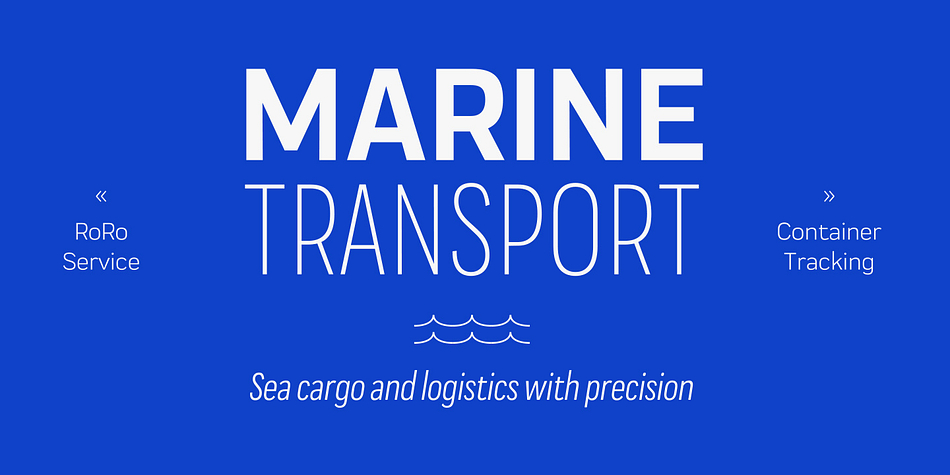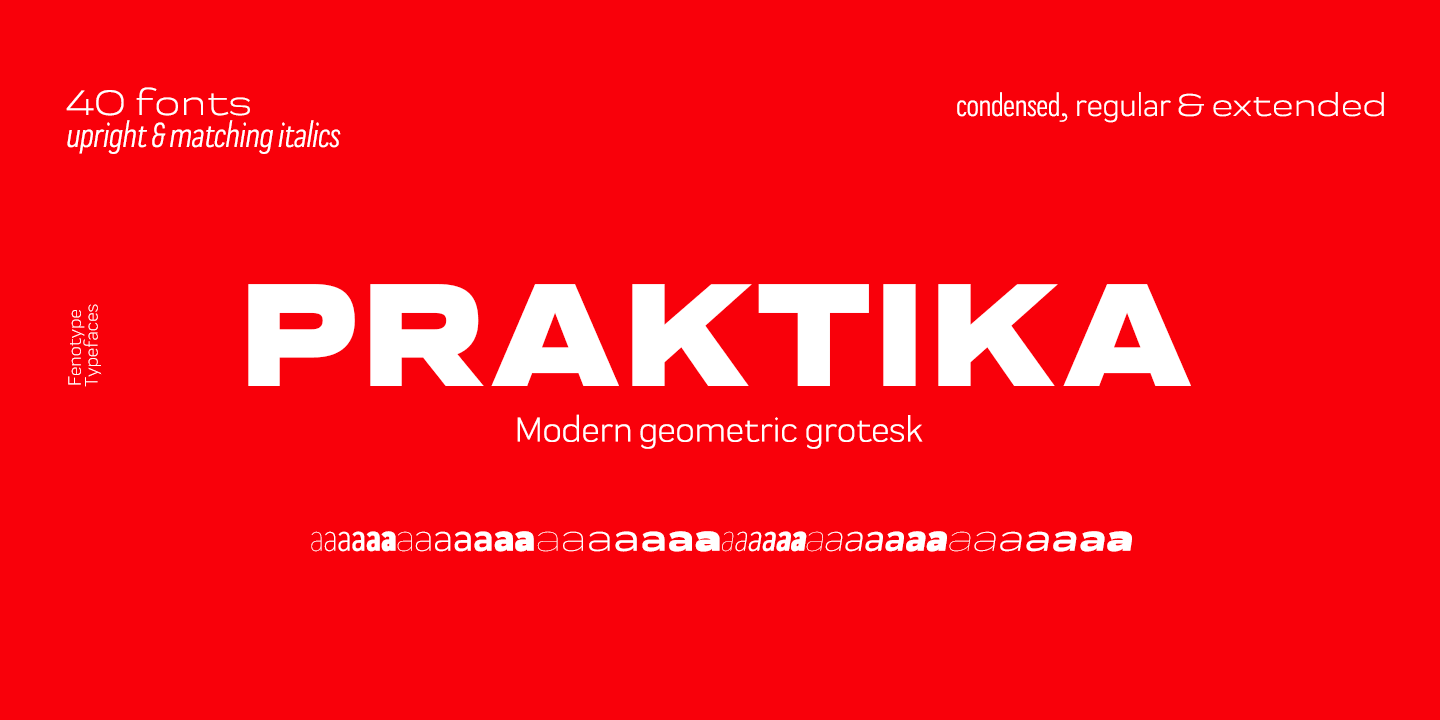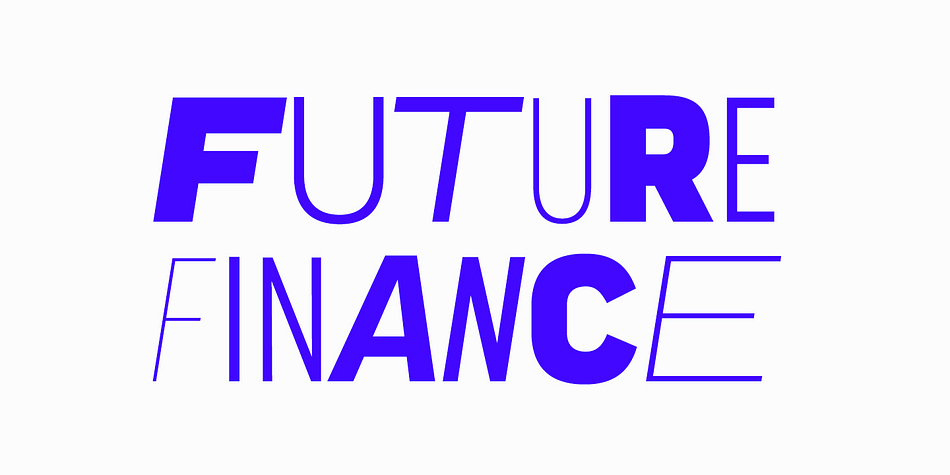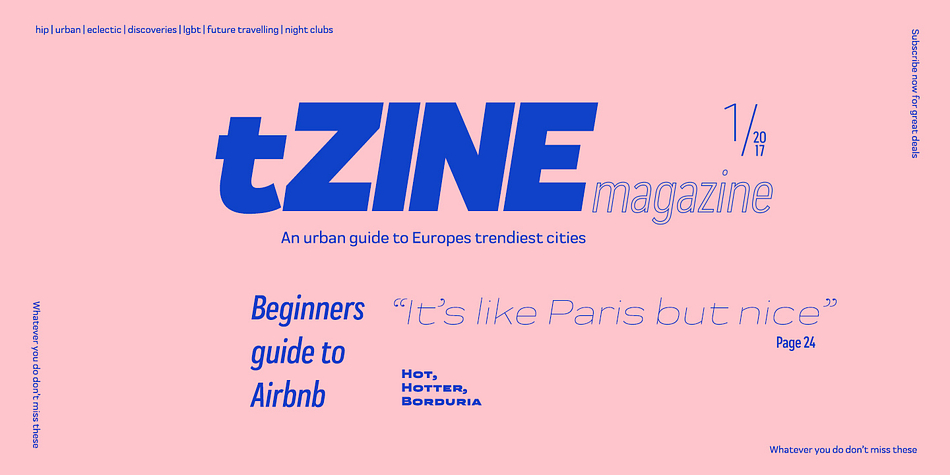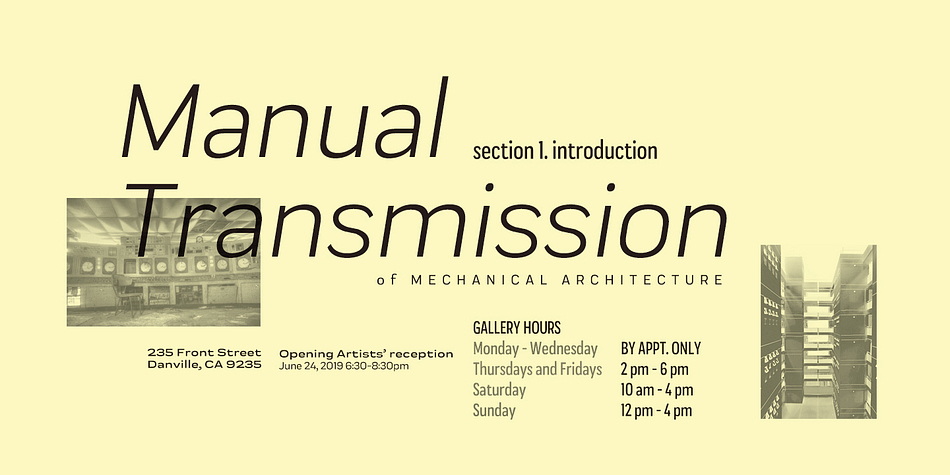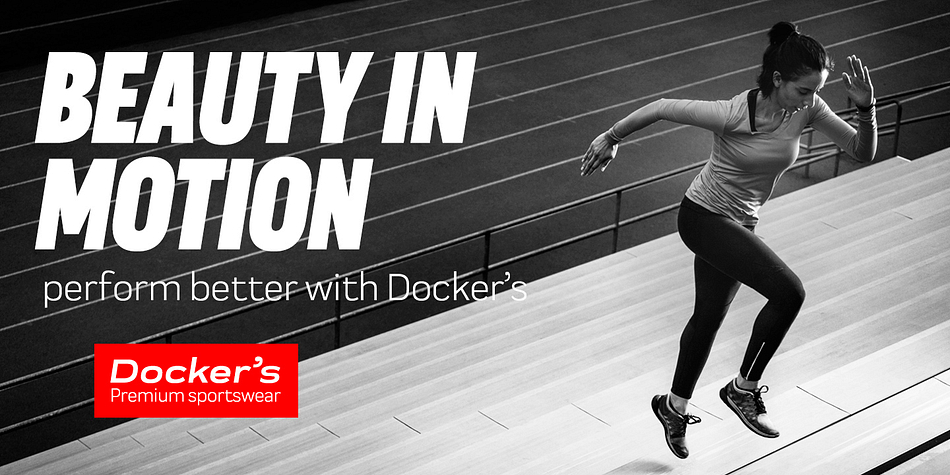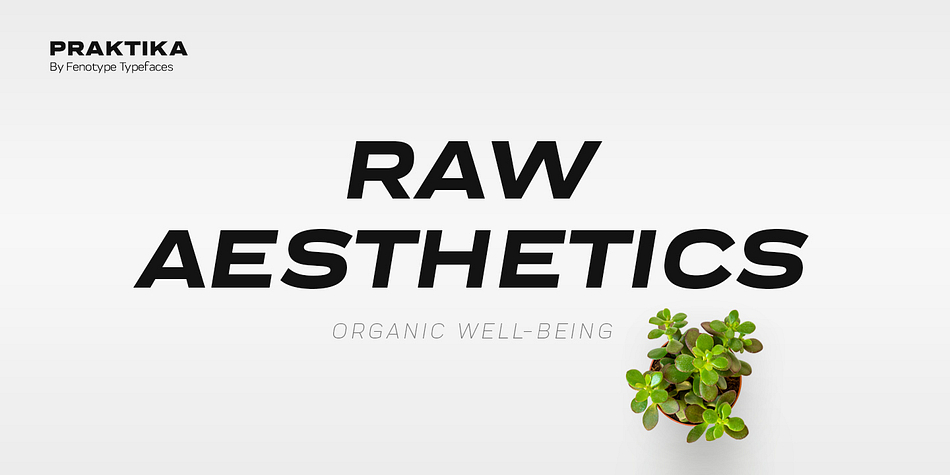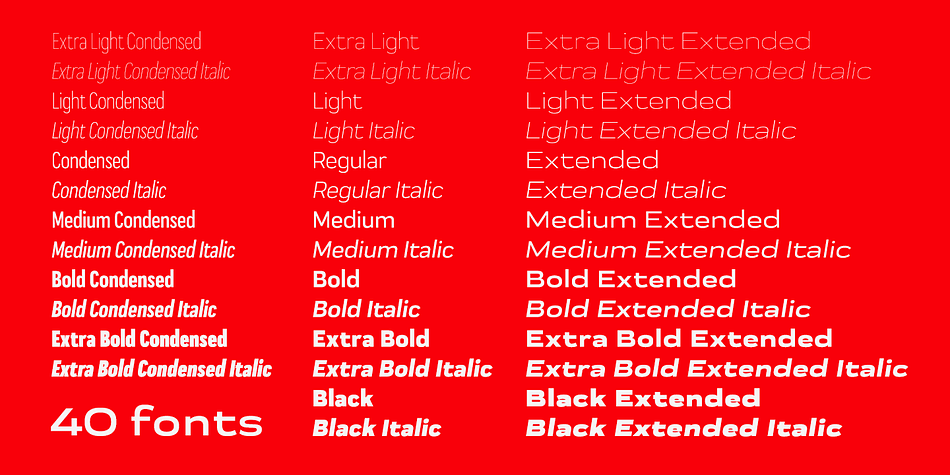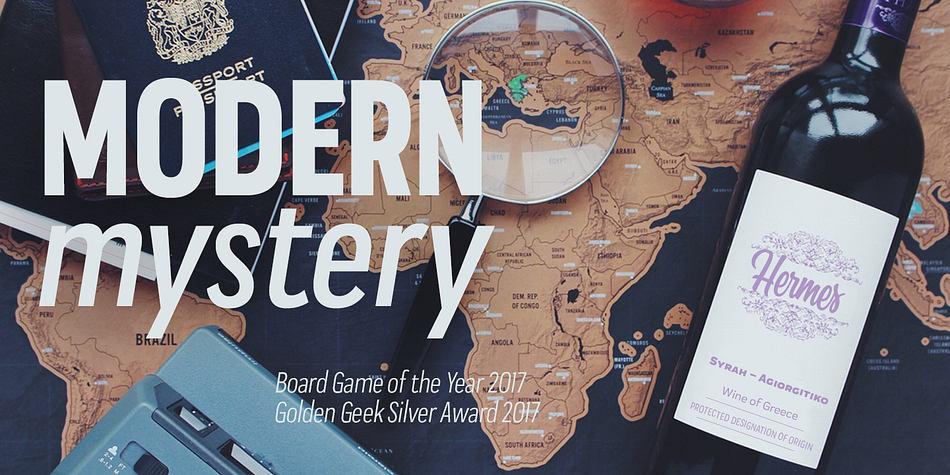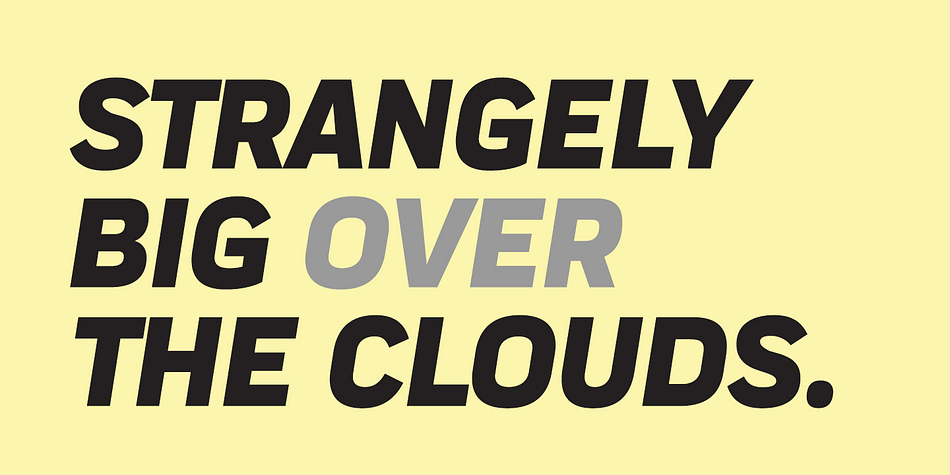
Designed by Emil Bertell, Praktika is a sans serif font family. This typeface has forty styles and was published by Fenotype.
Praktika is a modern grotesk super family.
Praktika is a multifunctional super family of 40 fonts. It consists of three distinct widths and weights from extra light to extra bold. Conceptually, it is a rendition of the familiar early 20th century European grotesque styles, used in road signage - reimagined to meet the needs of contemporary world.
Its design language, however, has been kept decidedly rough and bulky, to achieve a unique-yet-familiar look and feel.
Praktika comes with more than a few features, accessible in any open type savvy program.
• Built-in small capitals
• Both lining and old style numerals, in tabular or proportional form
• Superscript and subscript numerals
• Many alternate characters